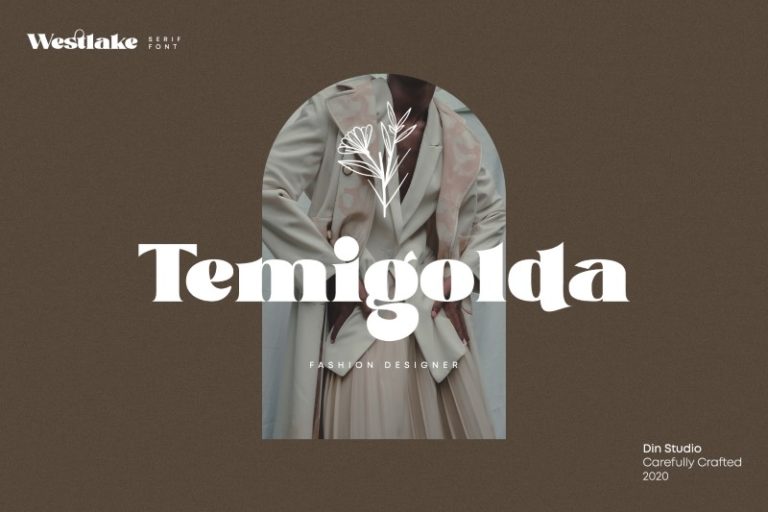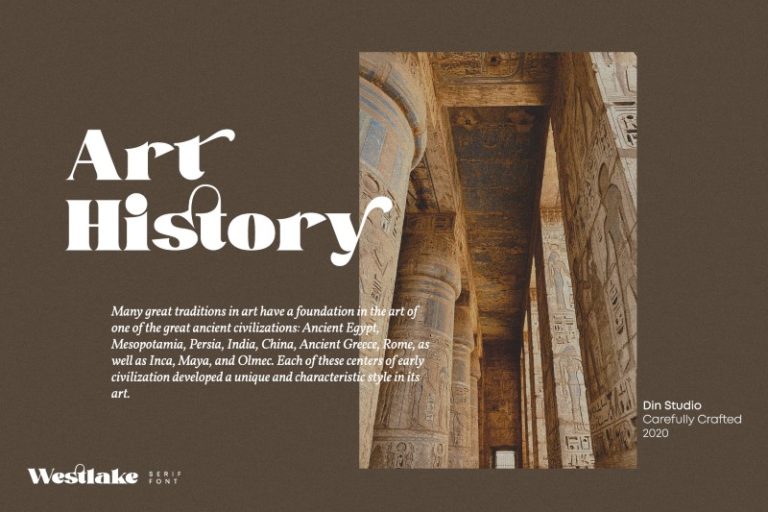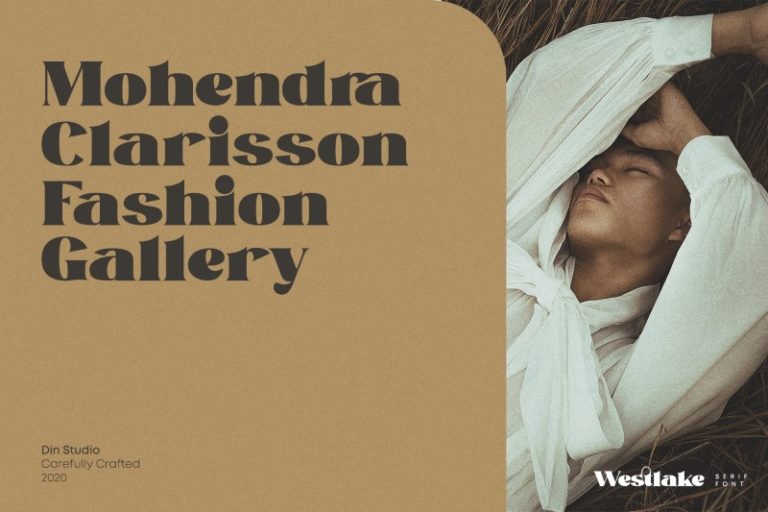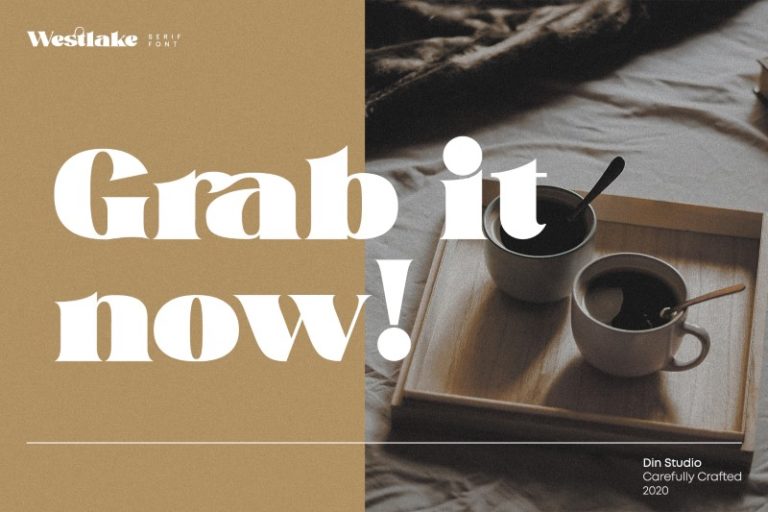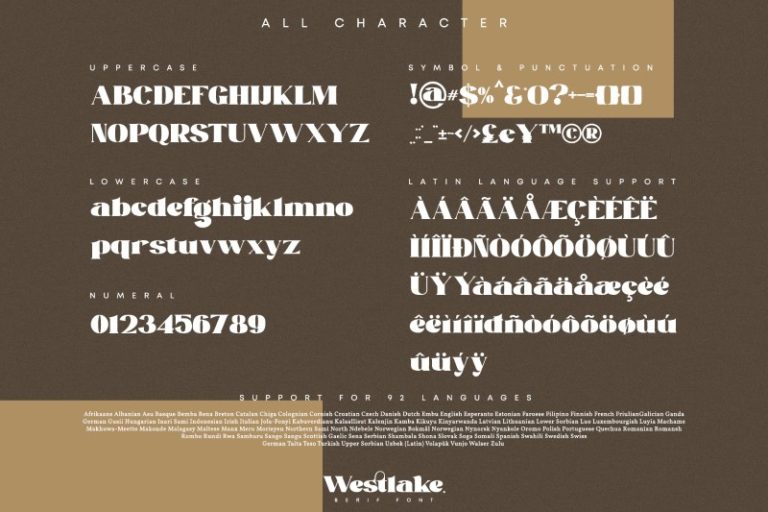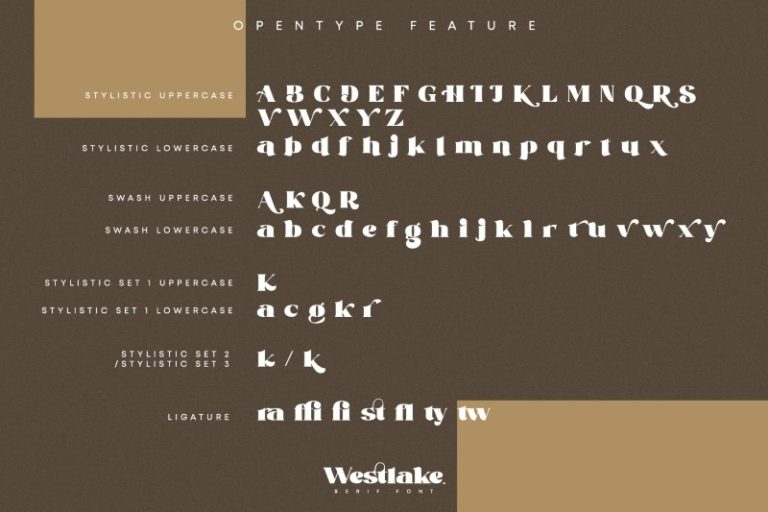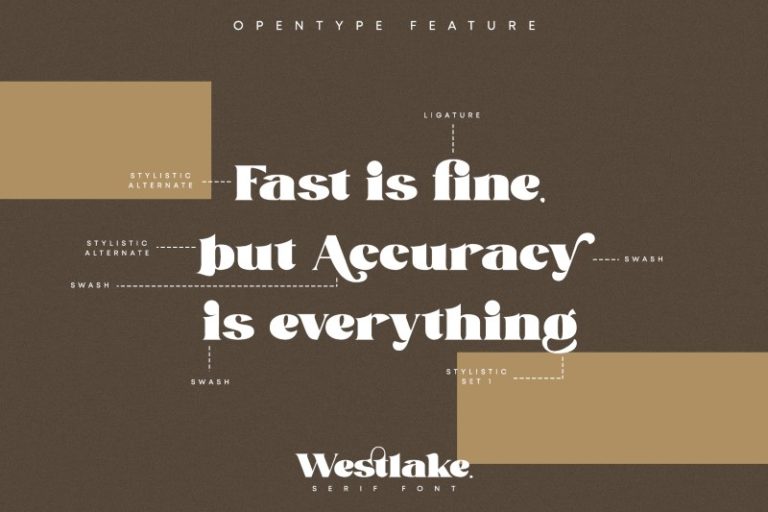
Westlake – Modern Display Serif Font
Westlake
Hello, Everyone! Introducing Westlake – Serif Font
Westlake is a serif font. Made for any professional project branding. It is the best for logos, branding and quotes. Every letter has a unique and beautiful touch. See the previews above to get some inspiration on how you can use them.
– Standard Ligatures
– Swashes
– Stylistic Sets
– Multilingual Support
– Numerals and Punctuation
Afrikaans, Albanian, Asu, Basque, Bemba, Bena, Breton, Catalan, Chiga, Colognian, Cornish, Croatian, Czech, Danish, Dutch, Embu, English, Esperanto, Estonian, Faroese, Filipino, Finnish, French, Friulian, Galician, Ganda, German, Gusii, Hungarian, Inari Sami, Indonesian, Irish, Italian, Jola-Fonyi, Kabuverdianu, Kalaallisut, Kalenjin, Kamba, Kikuyu, Kinyarwanda, Latvian, Lithuanian, Lower Sorbian, Luo, Luxembourgish, Luyia, Machame, Makhuwa-Meetto, Makonde, Malagasy, Maltese, Manx, Meru, Morisyen, Northern Sami, North Ndebele, Norwegian Bokmål, Norwegian Nynorsk, Nyankole, Oromo, Polish, Portuguese, Quechua, Romanian, Romansh, Rombo, Rundi, Rwa, Samburu, Sango, Sangu, Scottish Gaelic, Sena, Serbian, Shambala, Shona, Slovak, Soga, Somali, Spanish, Swahili, Swedish, Swiss German, Taita, Teso, Turkish, Upper Sorbian, Uzbek (Latin), Volapük, Vunjo, Walser, Zulu